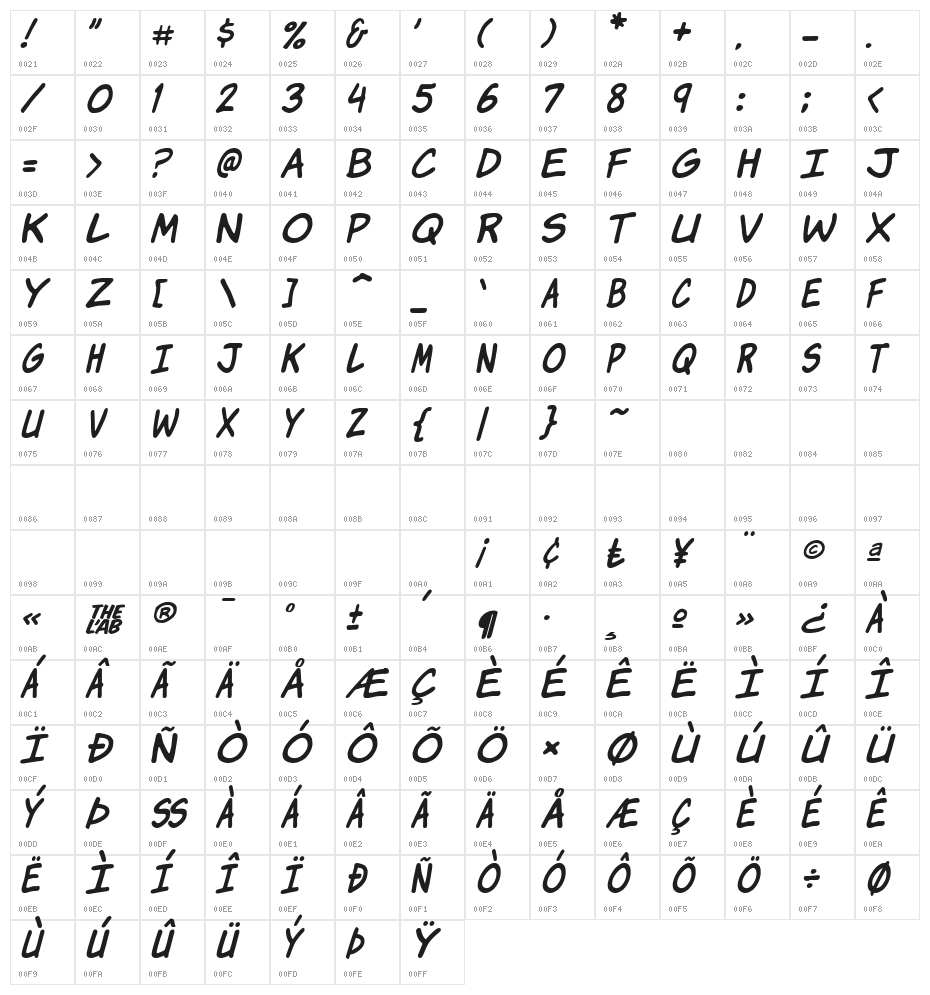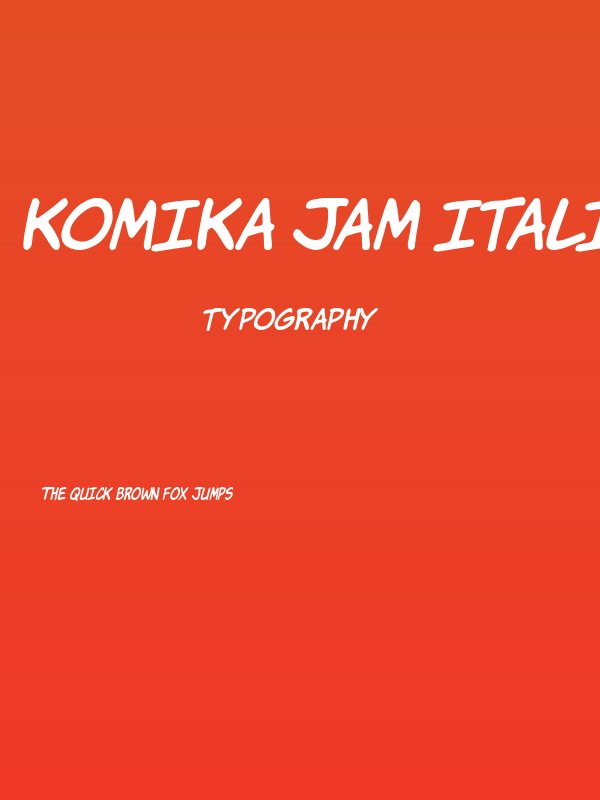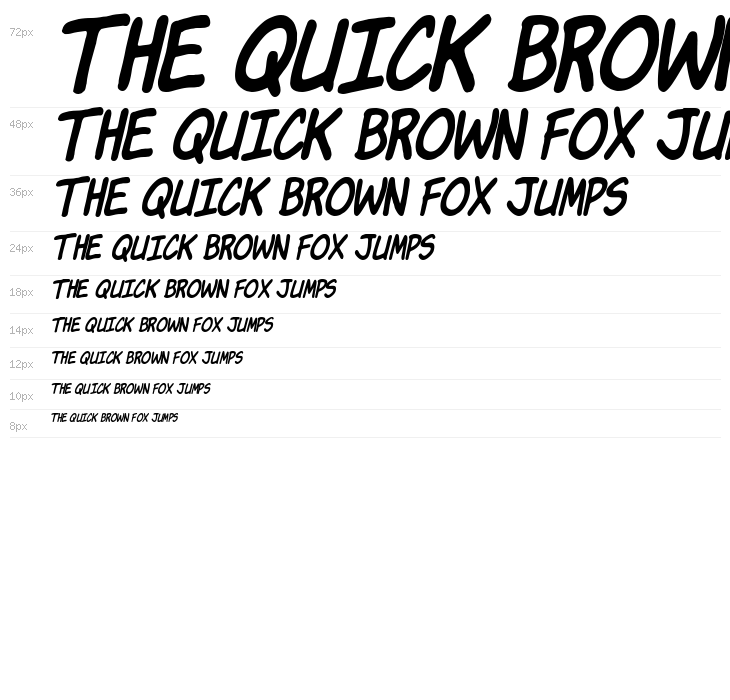
Komika Jam Italic Font
Komika Jam Italic Description
This playful and dynamic font features a bold, italicized style with a handwritten appearance. The characters are slightly slanted, giving a sense of motion and energy. The strokes are thick and rounded, providing a friendly and approachable feel. The uppercase and lowercase letters maintain a consistent style, with smooth curves and a casual flair. The numerals and special characters are equally expressive, complementing the overall aesthetic. This font is perfect for projects that require a fun and informal touch.
| Proposed Projects | Ideal for comic books, children's books, playful branding, and informal event invitations. |